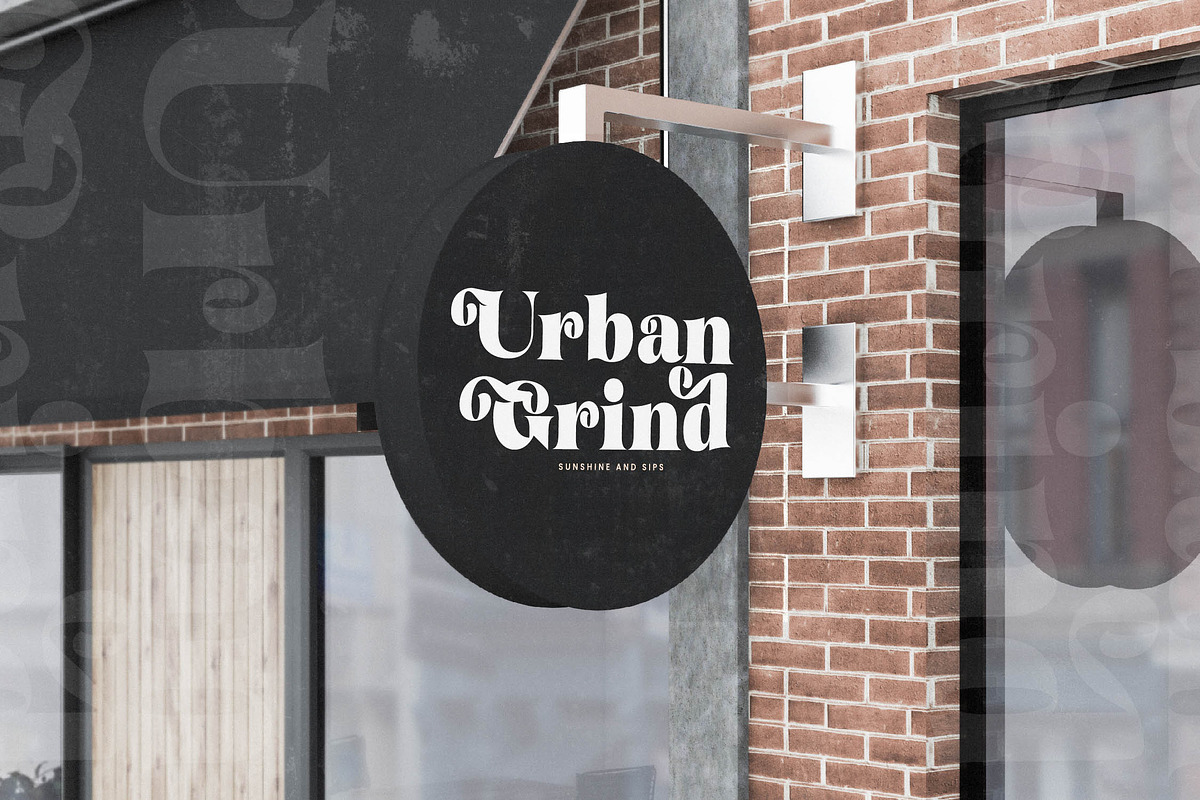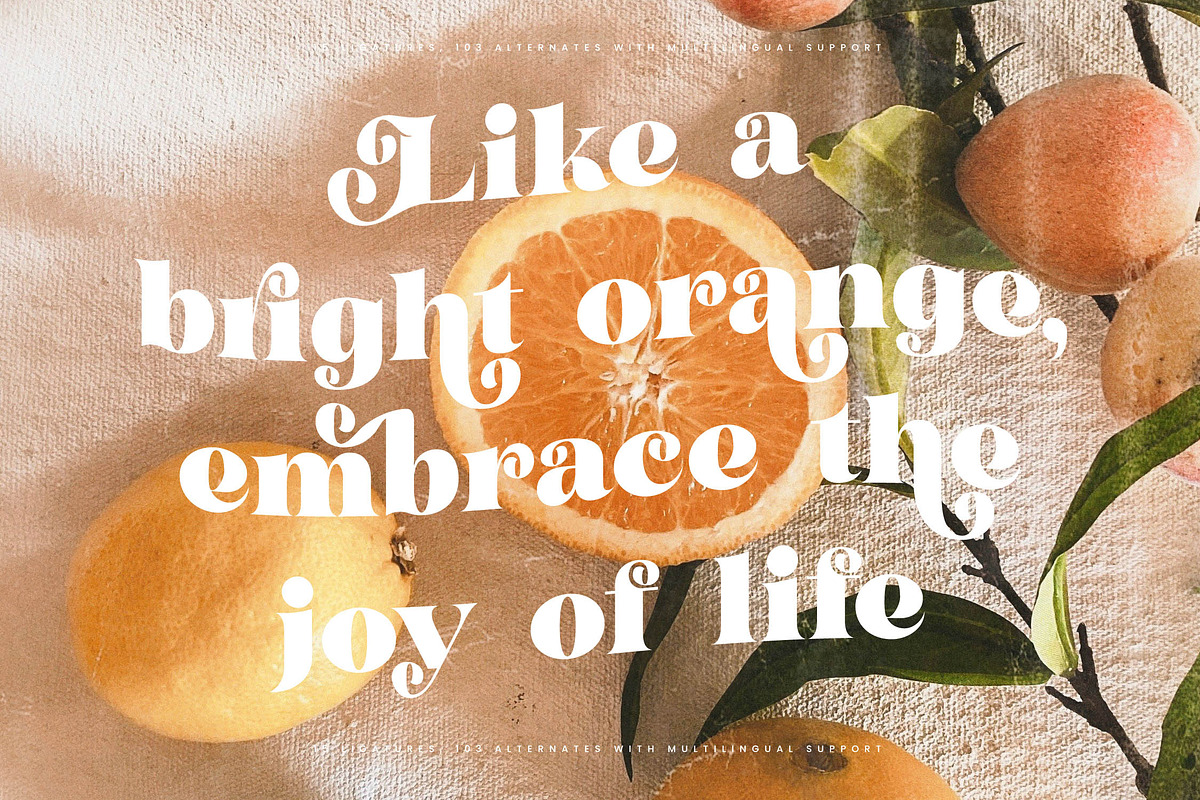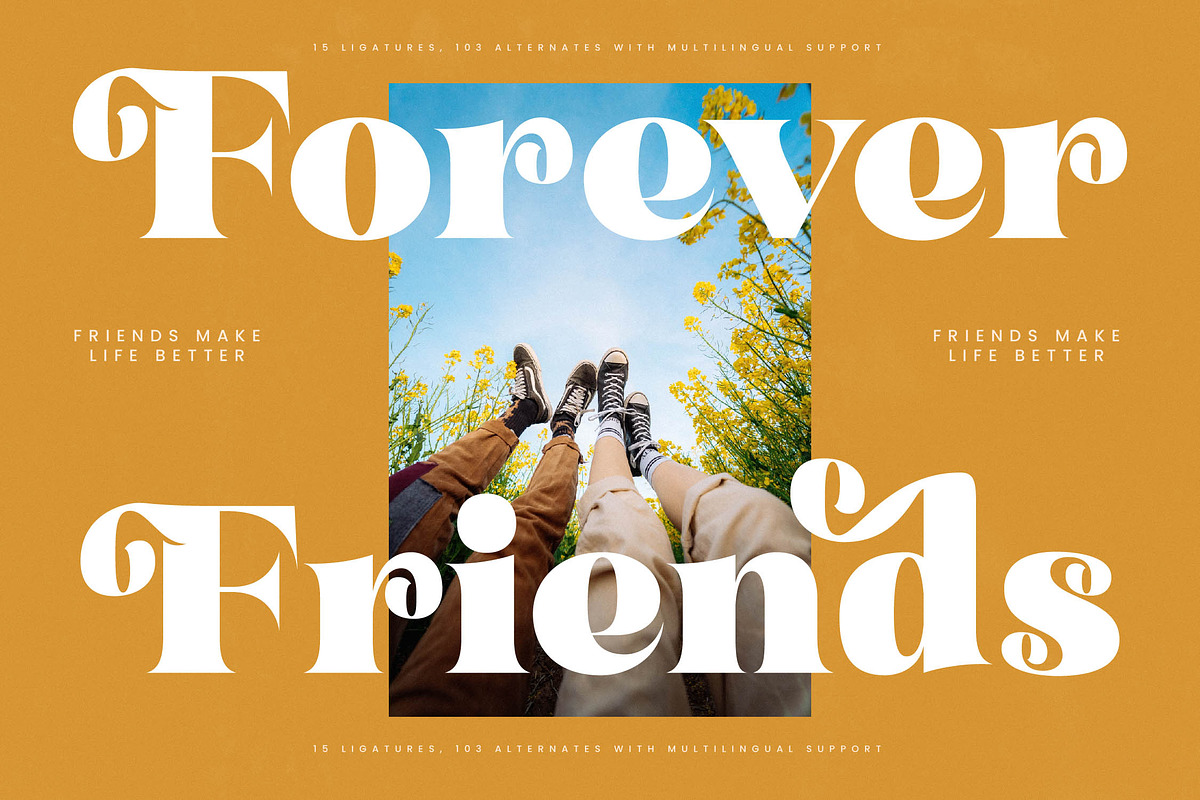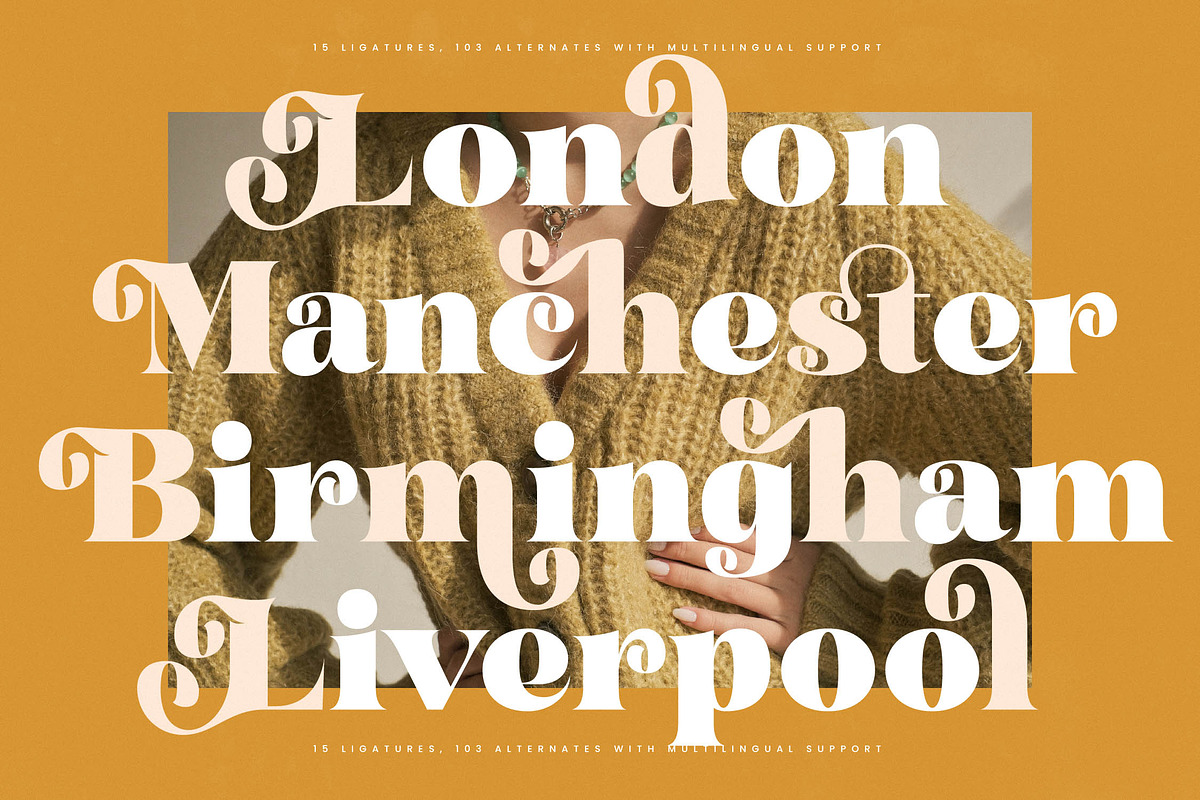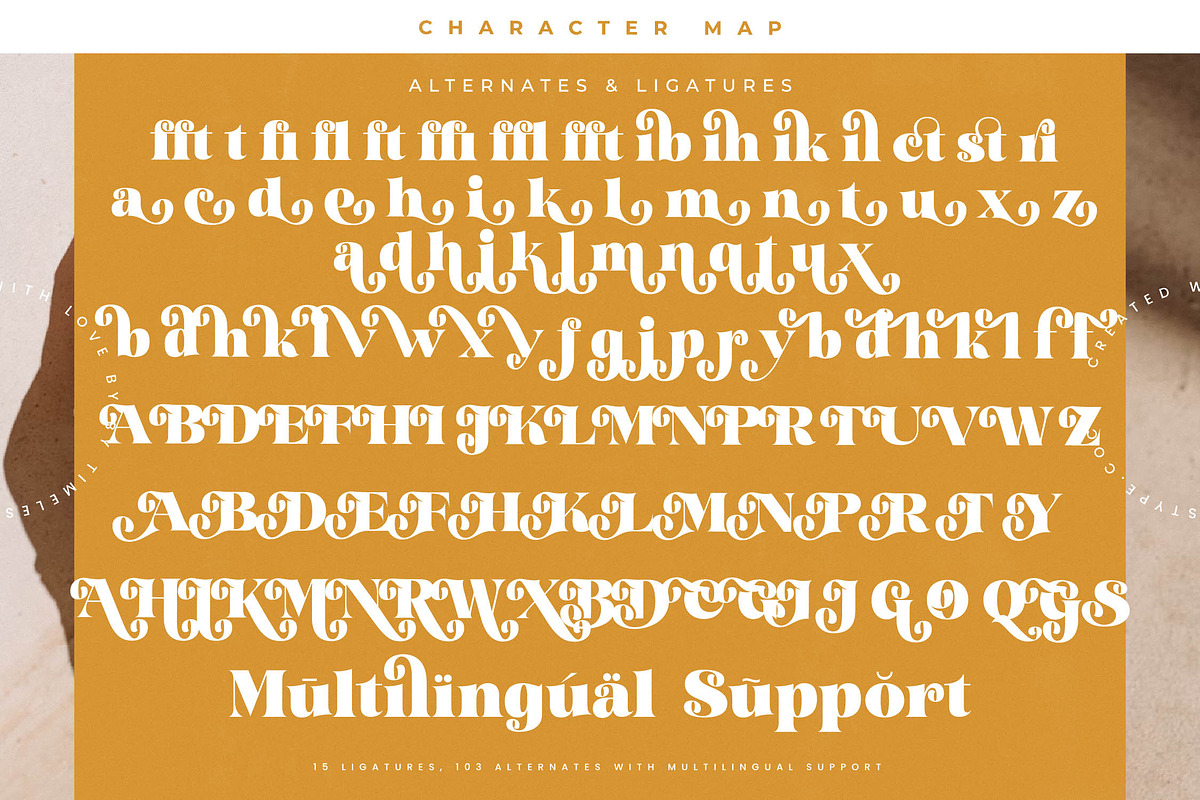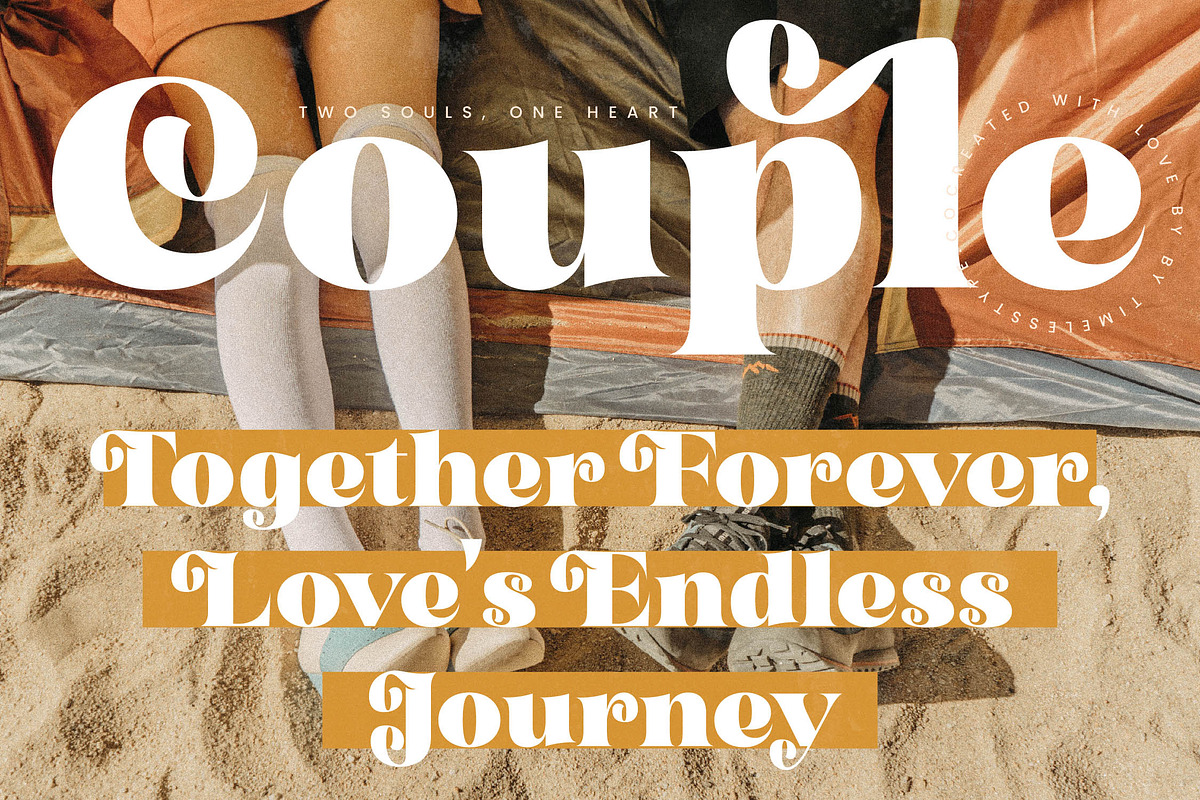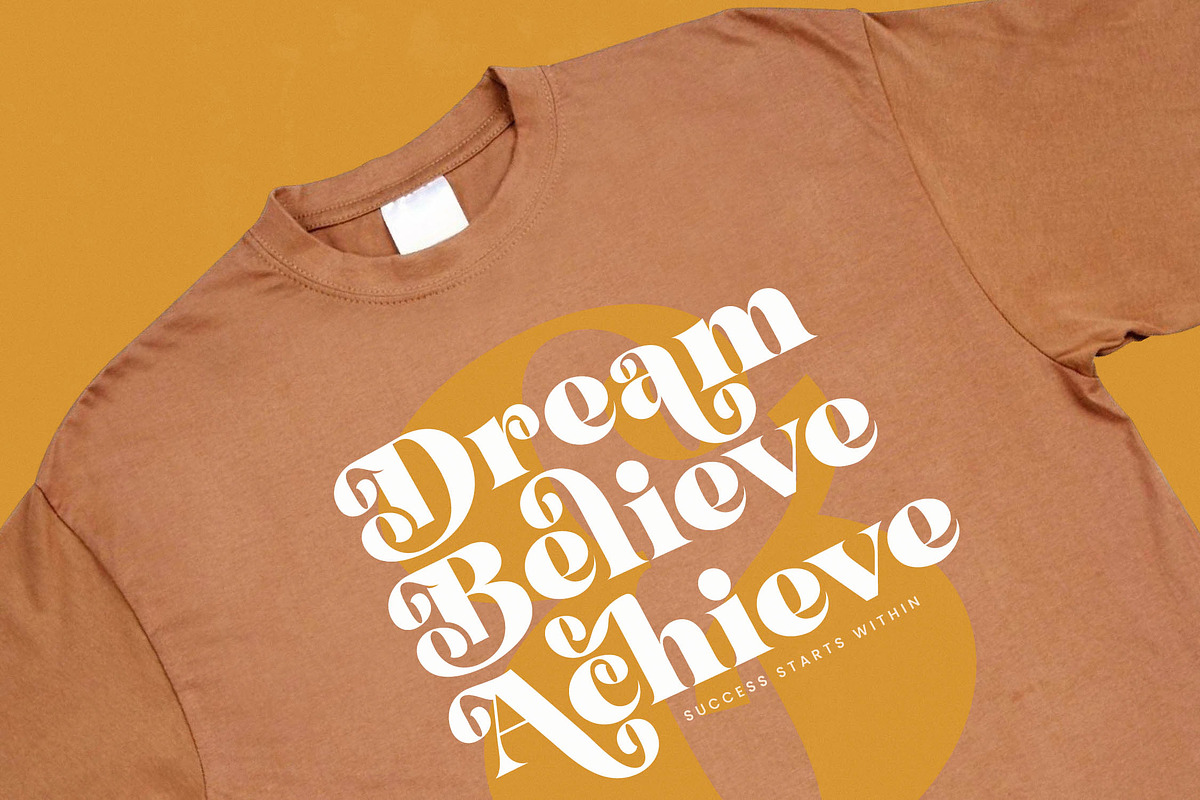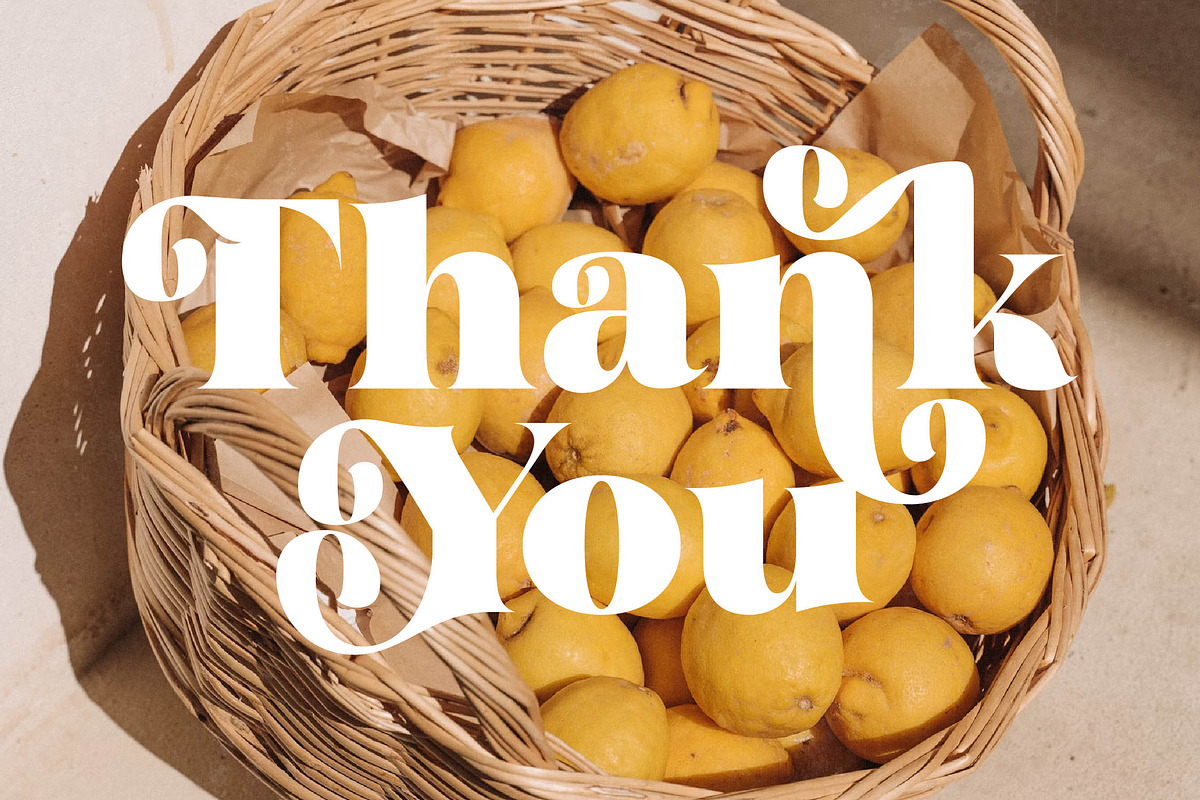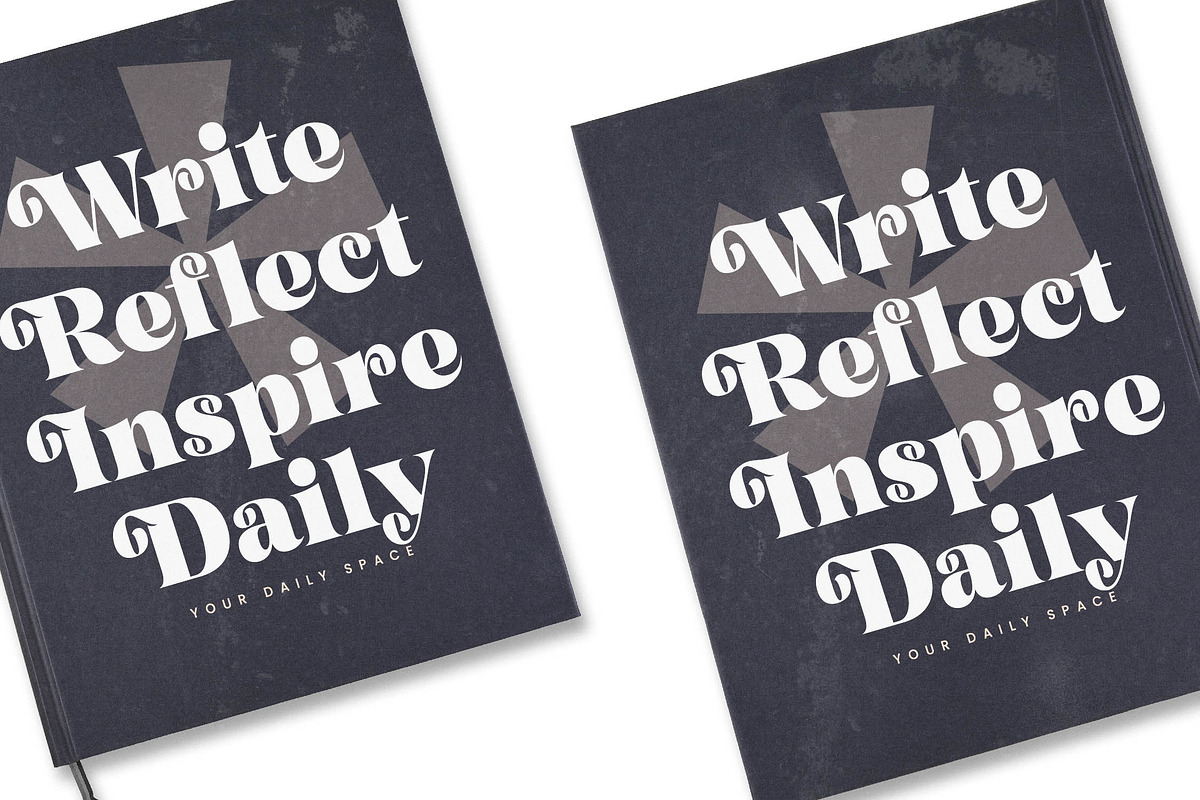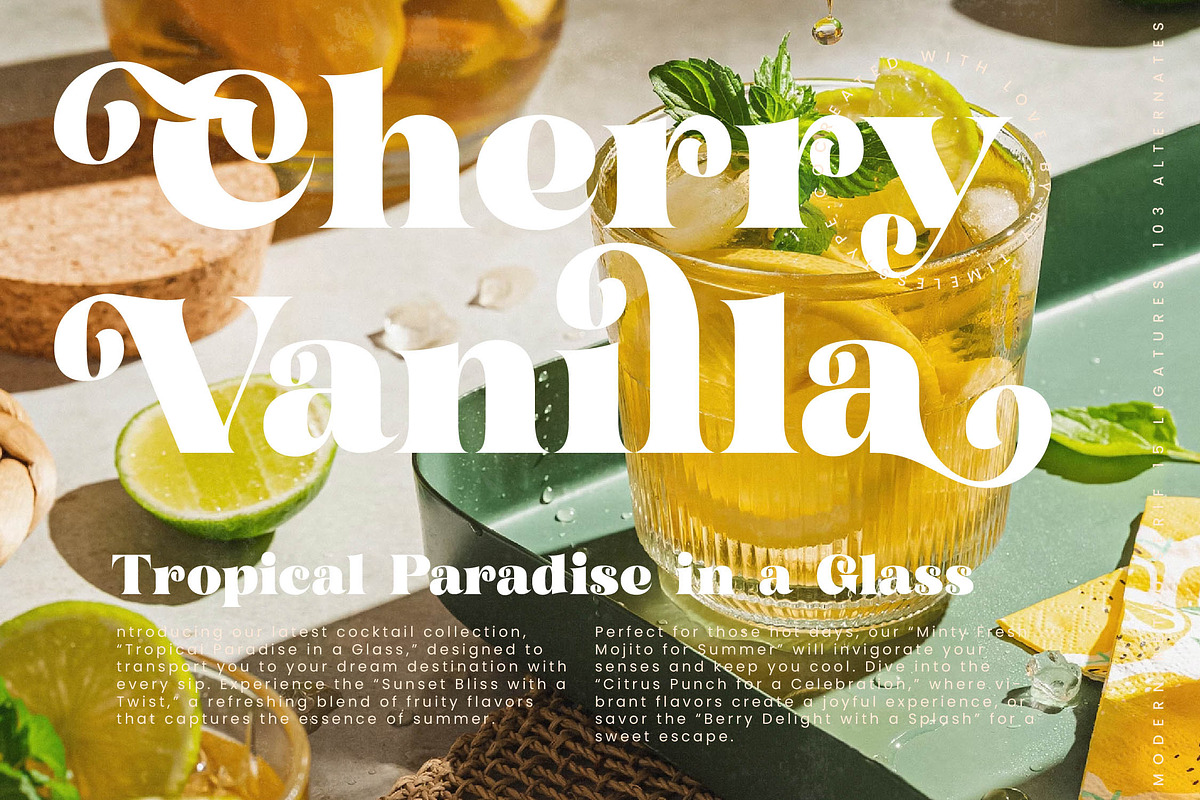
Garden Rosila Modern Retro Serif
Garden Rosila is a breathtaking masterpiece of typographic art that breathes life into every design with its sun-drenched elegance and sophisticated charm. This font is more than just a typeface; it is a visual invitation to a world where vintage romance meets contemporary flair.
Inspired by the lush, organic beauty of Mediterranean gardens and the timeless grace of mid-century editorial layouts, this font captures the essence of golden hour light dancing on wicker baskets. The design mirrors the natural curves and rhythmic flow of botanical elements, creating a sense of serene abundance and artisanal craftsmanship.
With its modern serif display architecture and stunning high-contrast serif strokes, this typeface delivers a powerful branding impact while maintaining an air of effortless grace. It serves as a premier luxury typography solution for creators seeking an editorial font that demands attention through delicate curves and bold presence.
Perfectly aligned with the current modern serif trend, this typeface fulfills the growing demand for character-driven typography that breaks away from minimalism. It stands at the forefront of the movement toward editorial display fonts that embrace personality, warmth, and nostalgic sophistication.
Ideally suited for high-end logo design and comprehensive branding projects, it shines in luxury packaging, boutique fashion campaigns, and sophisticated editorial spreads. Its romantic undertones make it a favorite for wedding invitations and stationery that require a touch of timeless elegance and unique personality.
This versatile typeface includes a rich library of ligatures and alternates that allow for custom typographic flourishes in every word. With extensive swashes, multilingual support, and a wide array of international characters, it ensures seamless design across various languages and creative platforms.
- Ligature 15 Alternate 103